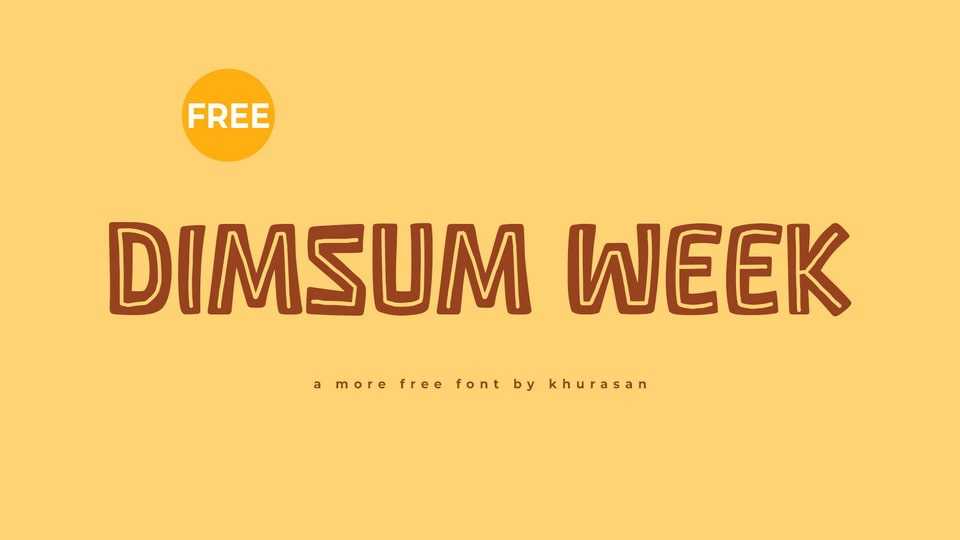
Download Dimsum Week font, a playful and chunky handcrafted typeface that brings a burst of joy and creativity to your designs. Dimsum Week font is crafted with bold strokes and playful outlines, creating a dynamic and eye-catching aesthetic.